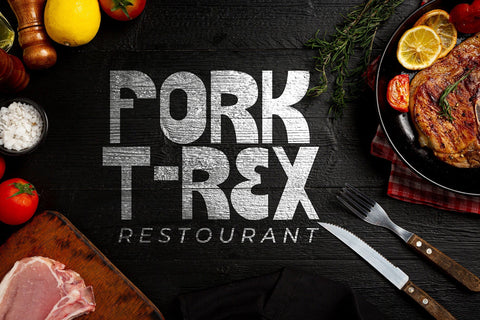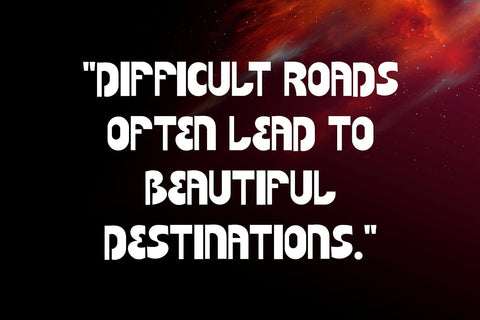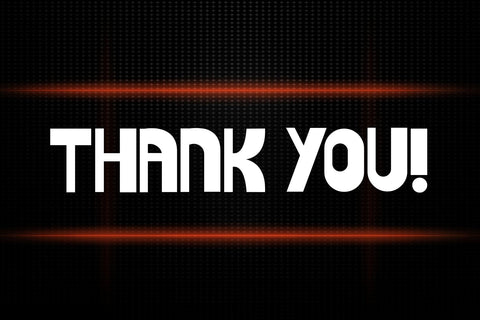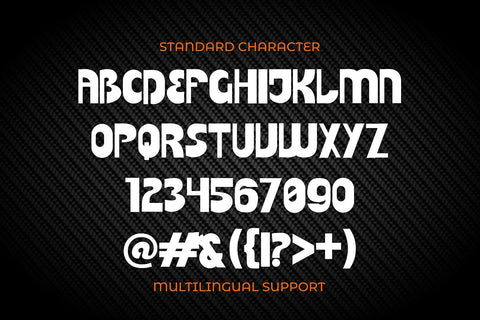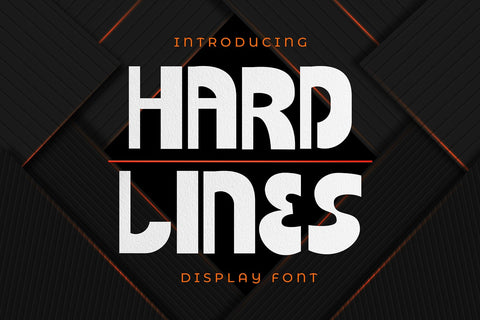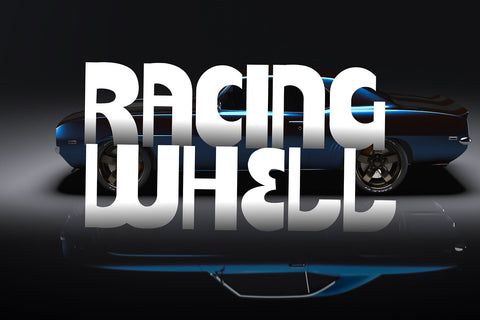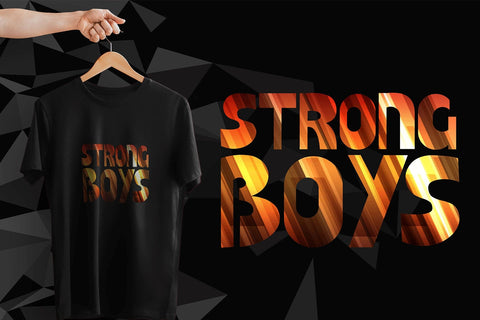
Hard Lines - Display Font
Hard Lines - A Fun Display Font With Shadow Decoration inside. It will elevate a wide range of design projects to the highest level, be it branding, headings, wedding designs, invitations, signatures, logotype, wall art illustration, apparel, labels, and much more!